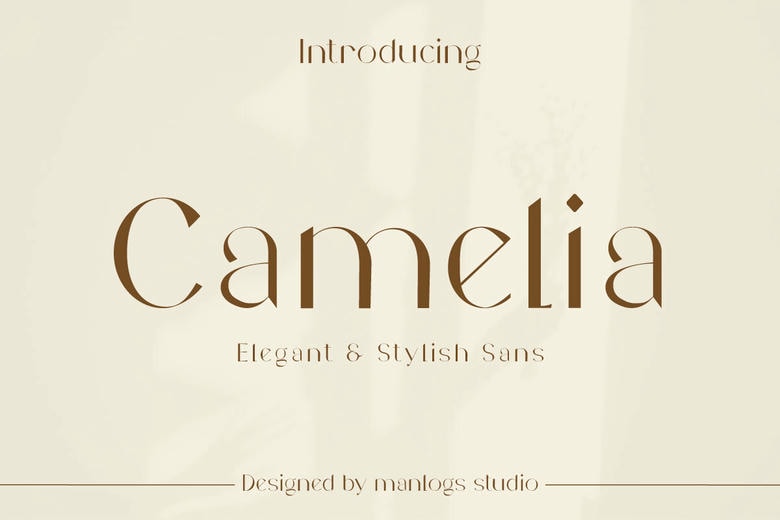
Camelia Sans Font
Camelia is a sophisticated and extremely glamorous modern sans serif typeface. It comes with silky curves and is suitable for templates, brochures, videos, advertising, branding, logos, invitations, layout design among others.
Camelia Sans Serif Font